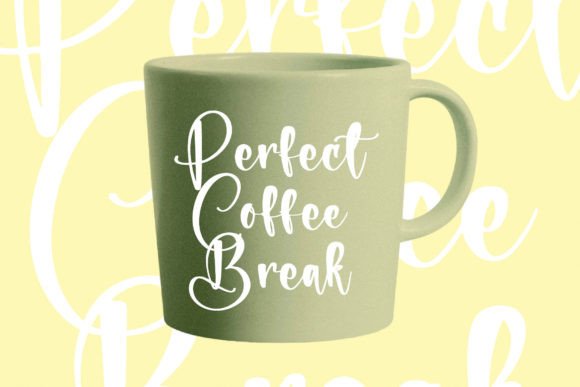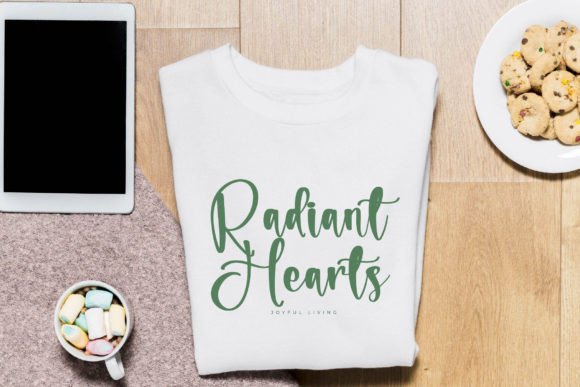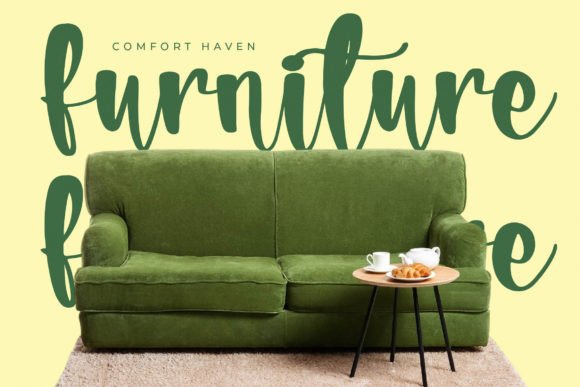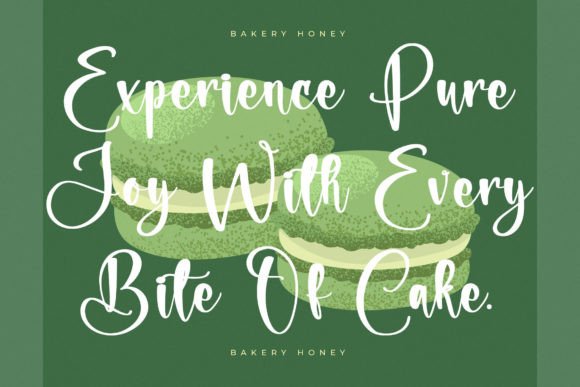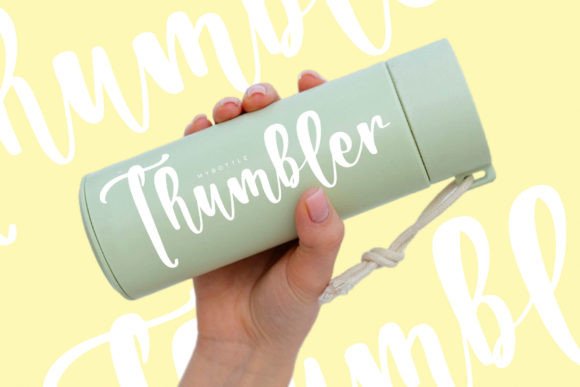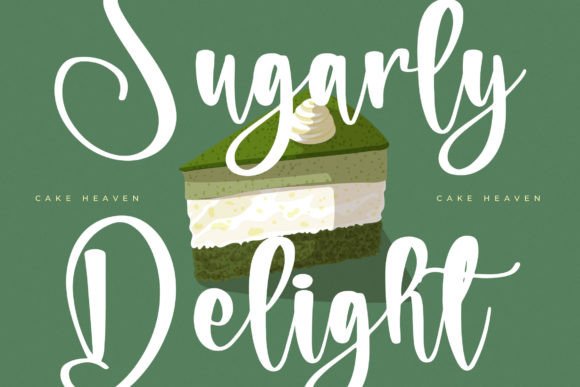
The Sweet Allure of Bakery Honey Font
Have you ever been rummaging through a quaint bakery, surrounded by the sweet aroma of freshly baked goods, and felt an instant urge to create something as charming and inviting? For designers, that creative spark can be the perfect starting point for a new project. And what better way to capture that essence than with the right font?
Enter Bakery Honey Font, a beautifully crafted handwritten script font that’s sure to add a touch of sophistication and elegance to your product labels, tags, and packaging. This delightful font is perfect for designers looking to create a unique and memorable brand identity. With Bakery Honey Font, you’ll be able to convey warmth, approachability, and a deep sense of quality – making it an invaluable addition to any designer’s toolkit.
Bakery Honey Font Key Features
- Unique Characteristics: Bakery Honey Font features a unique, handwritten design with a mix of cursive and script elements, making it perfect for bakery, food, and lifestyle branding.
- Font Style: The font is available in Regular, Italic, Bold, and Bold Italic styles, providing flexibility for designers to choose the perfect variant for their project.
Bakery Honey Font Review
I’ve had the chance to work with the Bakery Honey Font, and I have to say, it’s a delightful addition to any design project. ✨ The font’s playful, handwritten style is perfect for creating a warm and inviting atmosphere. Whether it’s for a bakery, a cafe, or a food-related brand, this font is sure to bring a smile to your customers’ faces.
Here are some of the things that work well with Bakery Honey Font:
- ✨ Whimsical, handwritten style that adds a touch of personality to your design
- ✨ Perfect for creating a cozy and inviting atmosphere, especially for food-related brands
- ✨ Highly customizable, allowing you to adjust the font’s size, color, and style to fit your design needs
- ⚠️ May not be suitable for formal or professional designs, as its playful style may come across as unprofessional
- ⚠️ Can be difficult to read at smaller font sizes, so make sure to adjust accordingly
- ⚠️ May not be compatible with all font styles or combinations, so be prepared to experiment with different pairings
Overall, I’d say Bakery Honey Font is a great addition to any designer’s toolkit, but it’s essential to use it thoughtfully and consider its limitations. With the right project and a bit of creativity, this font can be a real showstopper.
Bakery Honey Font: A Practical Application Guide
Tips for Getting the Most Out of Bakery Honey Font
To get the most out of the Bakery Honey font, try using it in combination with other fonts for a unique and creative look. You can also experiment with different font sizes, colors, and styles to create a visually appealing design.
The Bakery Honey font is perfect for bakery-themed designs, food blogs, and restaurant menus. You can also use it for wedding invitations, party decorations, and other events that require a sweet and playful touch.